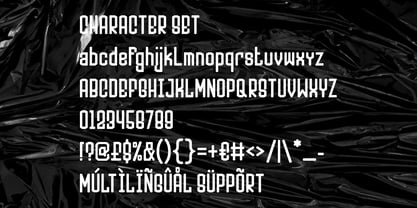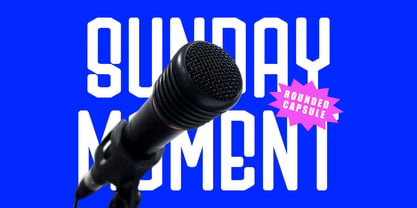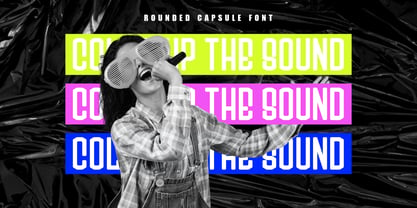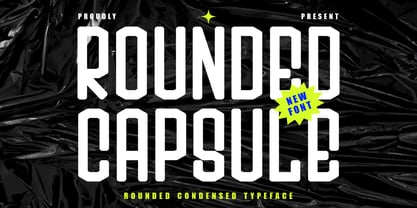
Rounded Capsule
von Shanaf
Die Schriftfamilie Rounded Capsule wurde von Yesie Erma Yunita entworfen und von Shanaf veröffentlicht. Rounded Capsule enthält 1 Stile. Mehr über diese Familie
Rounded Capsule Condensed Font brings a sleek condensed structure paired with smooth rounded edges that create a refined modern look. Each character is tall and narrow, giving the typeface a compact appearance that saves space while staying highly readable. The strokes are moderately thick with consistent width, producing a balanced weight that feels firm but not heavy. Its rounded terminals soften the entire composition, adding a subtle friendliness to the otherwise bold geometric form. This mix of tight proportions and softened shapes makes the font ideal for designs that want a clean, fresh, and contemporary identity. Rounded Capsule Condensed Font stands out through its capsule-like silhouette, precise construction, and strong visual rhythm. This font suits a wide range of modern projects such as branding, posters, advertising layouts, editorial titles, and digital promotions. Its condensed width works well for long headlines, while the rounded form brings a stylish and approachable tone. Designers can apply it to product packaging, film titles, business marketing, music covers, magazine spreads, stickers, and event graphics. Its versatility allows it to shine in both minimal and expressive concepts, delivering clarity and personality in every application. Rounded Capsule Condensed Font is crafted for creators who want a distinctive condensed style that blends modern geometry with soft edges, resulting in impactful and memorable typography.
Designer: Yesie Erma Yunita
Aktuelle Foundry: Shanaf